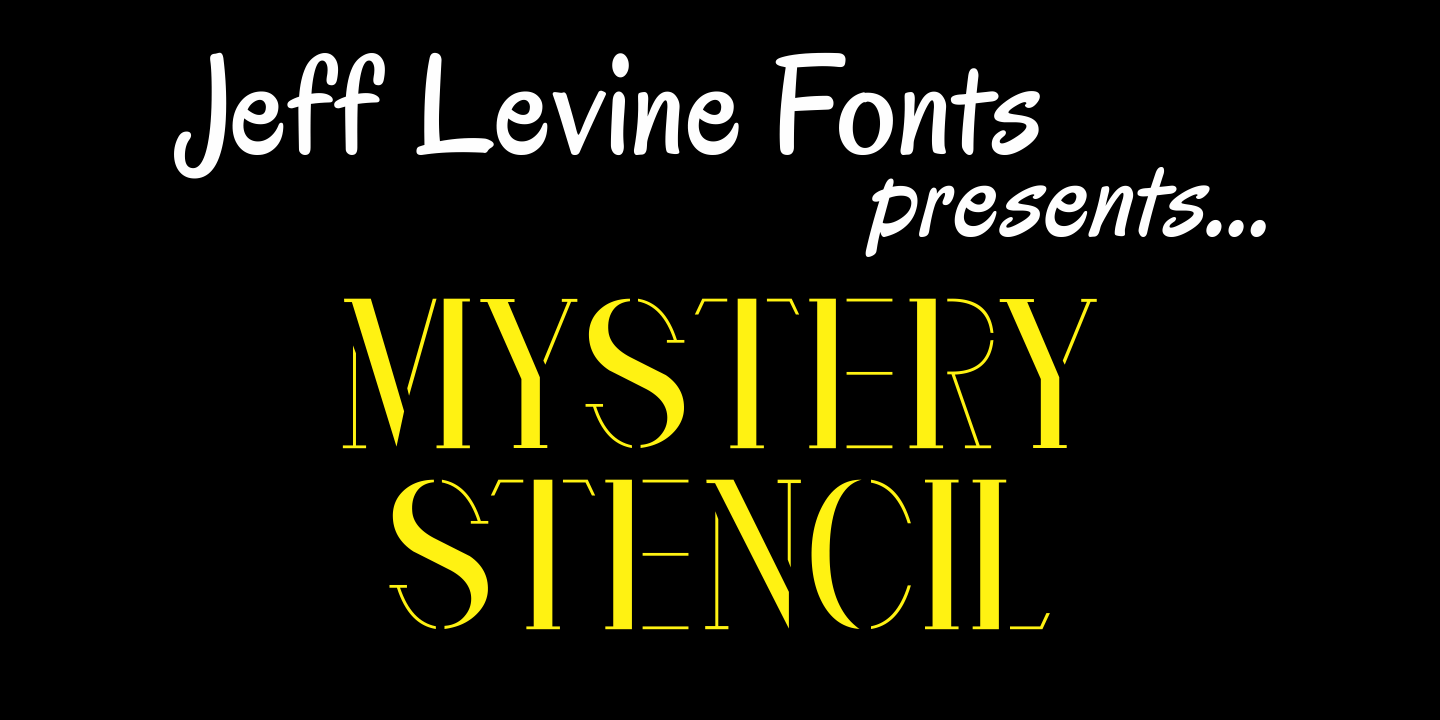
Mystery Stencil
Mystery Stencil JNL was inspired by an email from type designer Ray Larabie, owner of Typodermic and Larabie Fonts. He'd sent Jeff Levine some images of European kitchenware with an unusual stencil design and asked if Jeff could identify the mystery stencil used in the labeling. This inspired Jeff to not only sketch out an alphabet based on those images, but to name the font Mystery Stencil JNL.